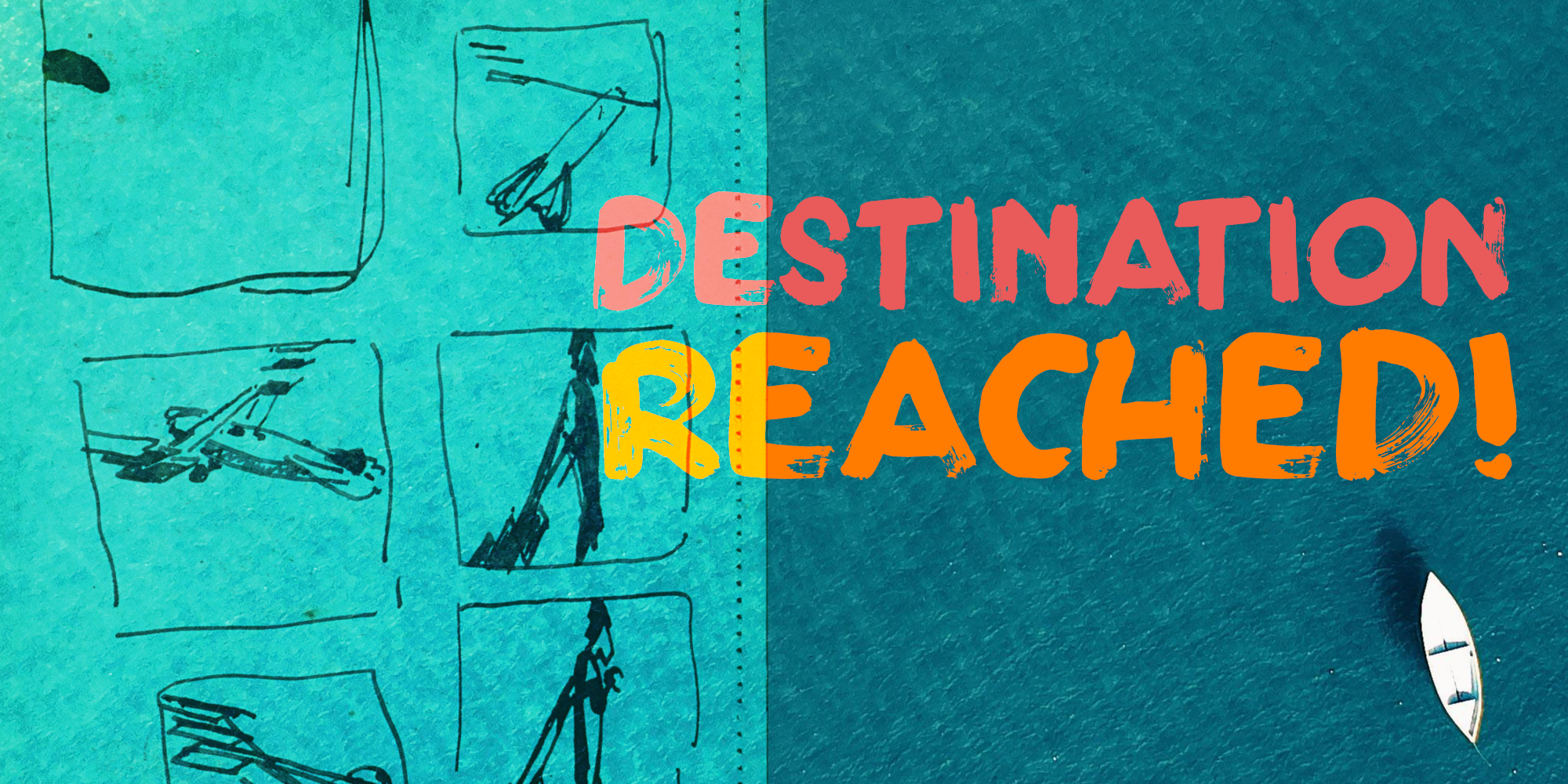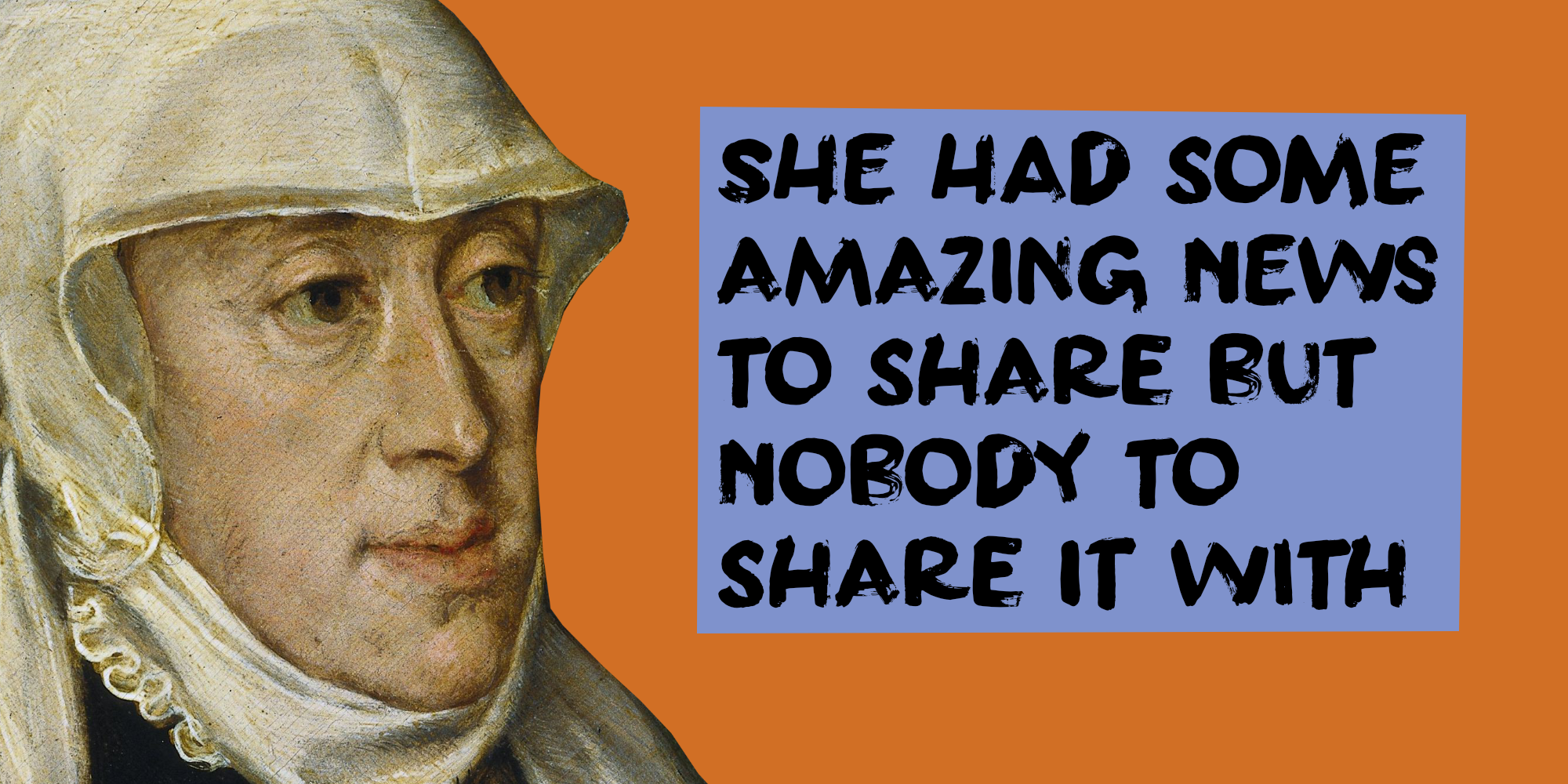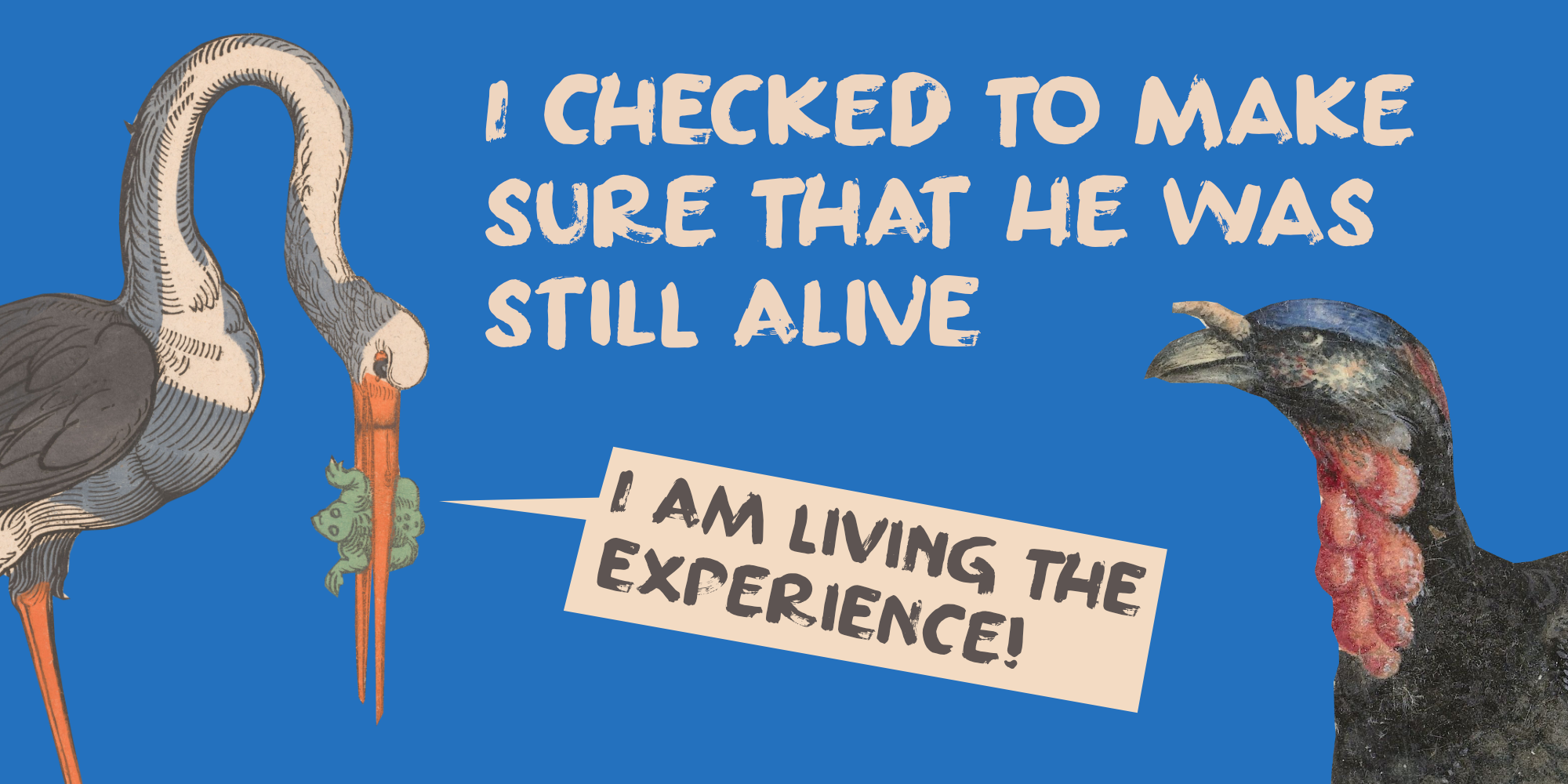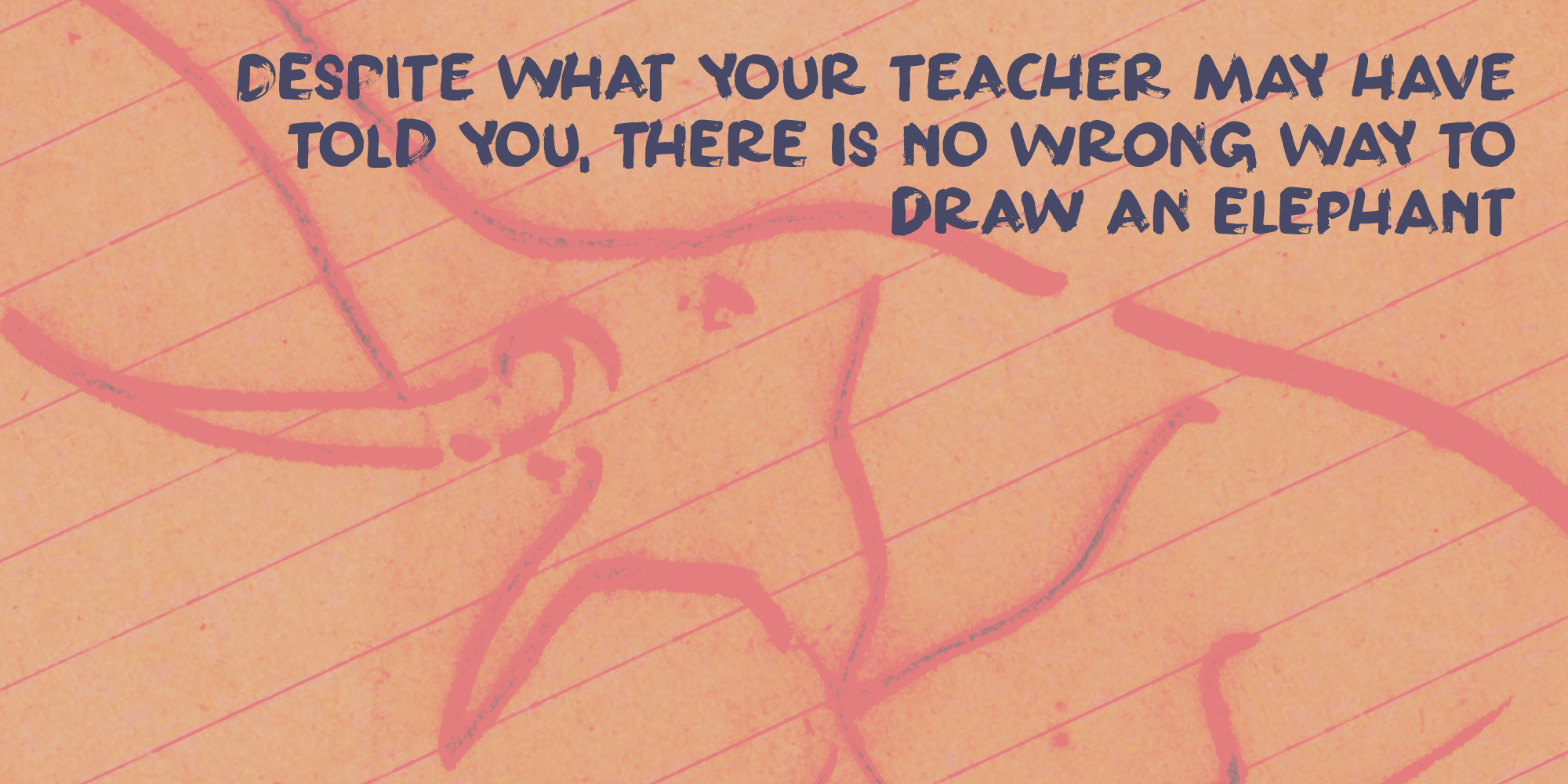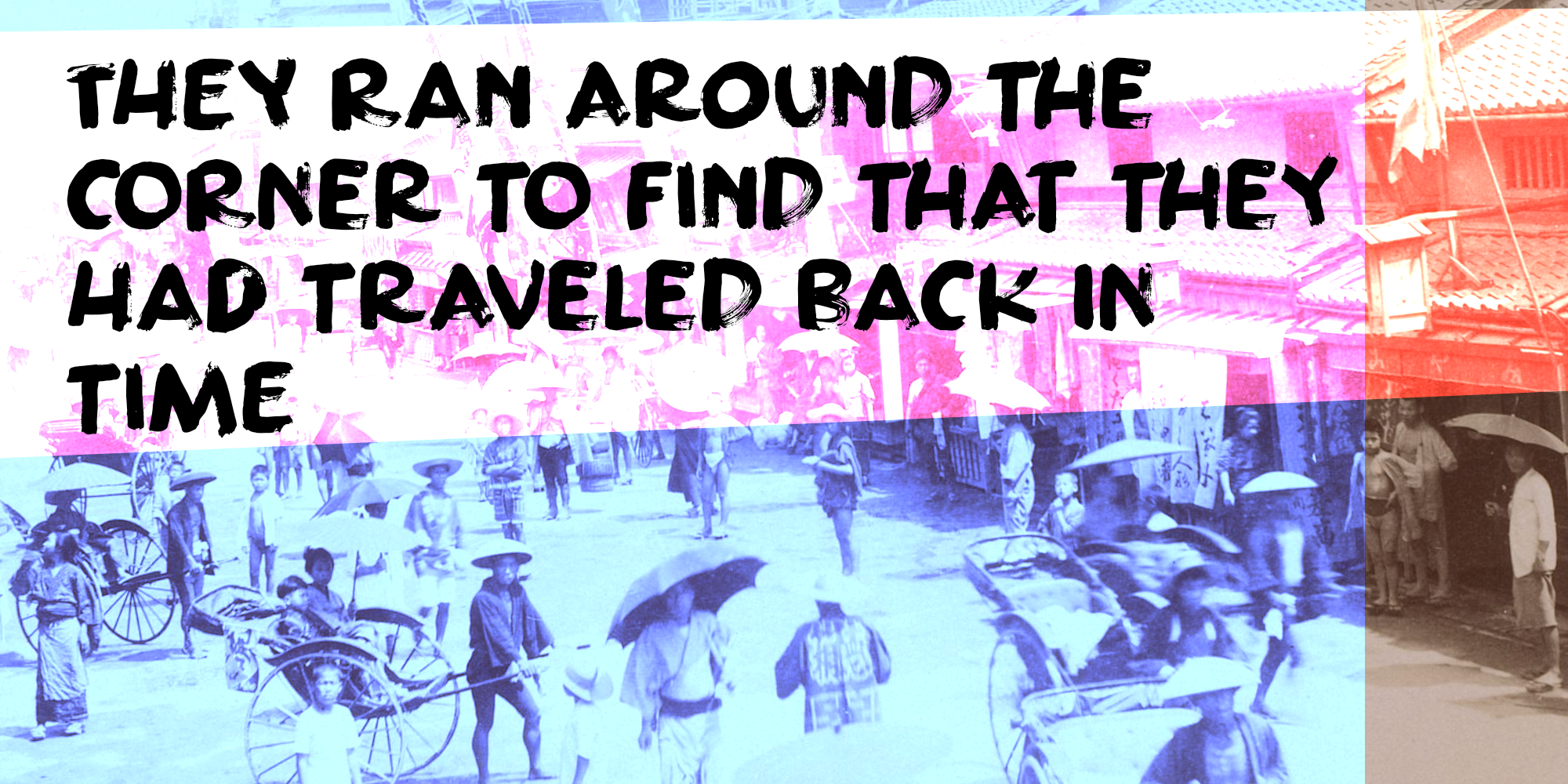
Destination Reached (2 fonts)
Destination Reached is a lovely, handmade brush font. I made it with a brush (from which I had cut off most of the bristles) and gouache paint. Destination Reached comes with extensive language support and a set of contextual alternates.